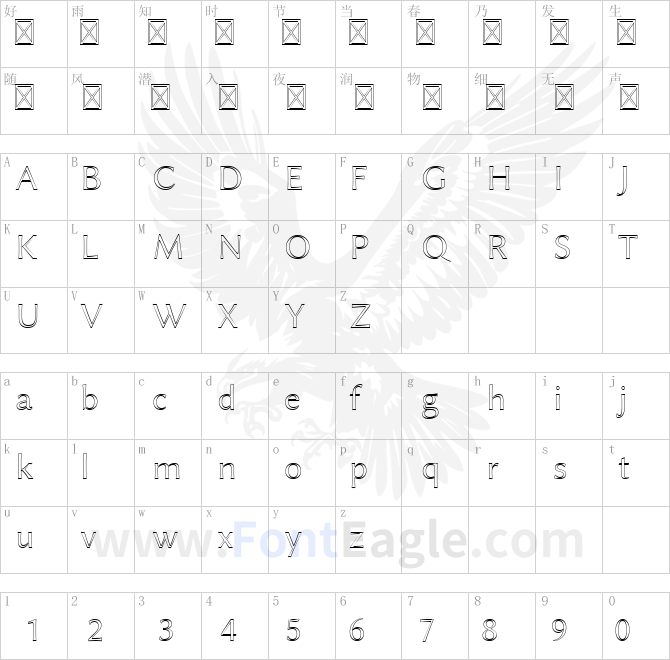
Linux Biolinum Outline Regular.ttf Base Font Information
- Font name:Linux Biolinum Outline
- Font Subfamily ID:FontForge 2.0 : Linux Biolinum Outline : 21-6-2011
- Font Full Name:Linux Biolinum Outline
- Font Version:Version 1.1.0
- Postscript:LinBiolinumU
- Font Copyright:Linux Libertine by Philipp H. Poll,